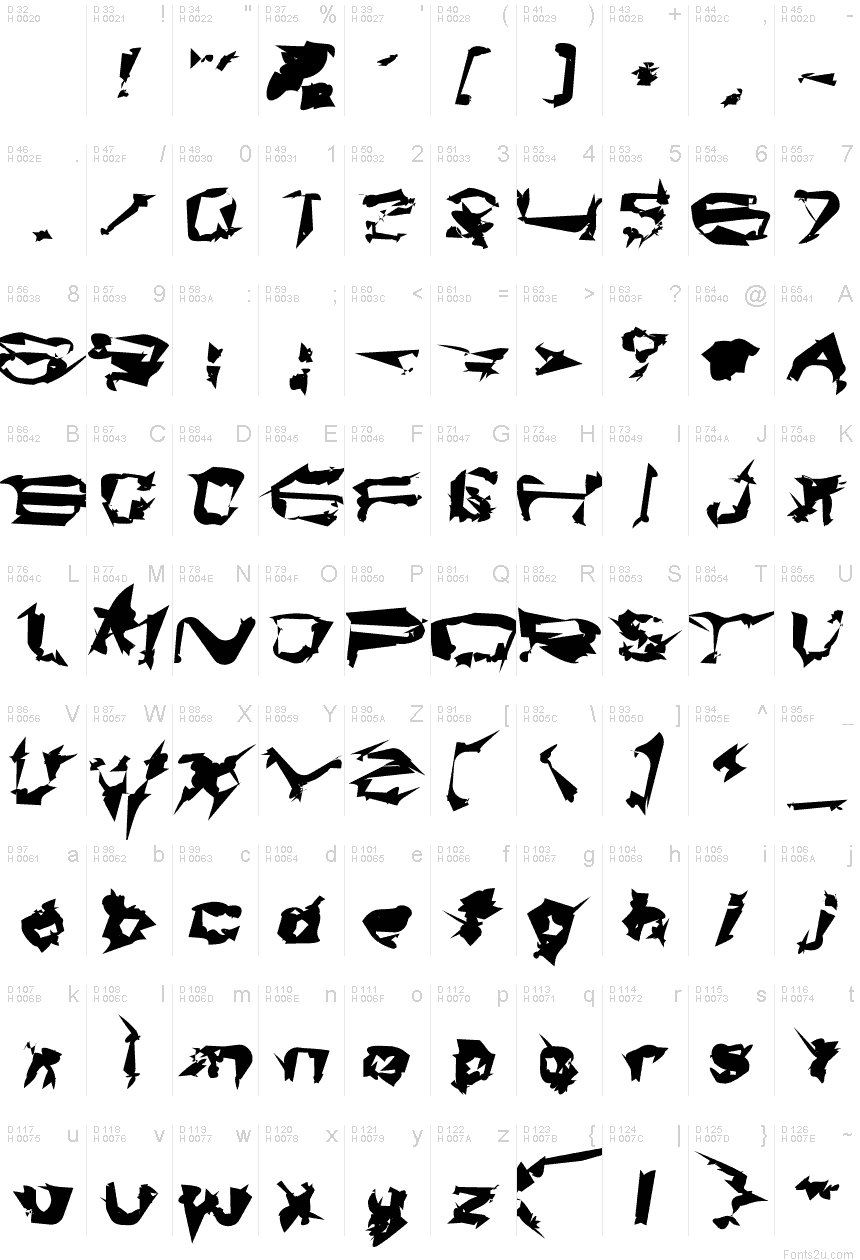
Brunkål
Brunkål font by TarmSaft Font Factory twists heavy black shapes into a chaotic, splintered wordmark. Each letter feels hacked out of paper and glued back together, full of sharp edges and unexpected gaps. This free font leans into a distorted, almost graffiti-like energy that demands attention.
Brunkål works when you need something wild for horror posters, underground flyers, zines, album covers, skate graphics, game titles, or edgy social media art. Use this free font big and bold, and pair it with a plain sans serif at small sizes to keep supporting text readable.